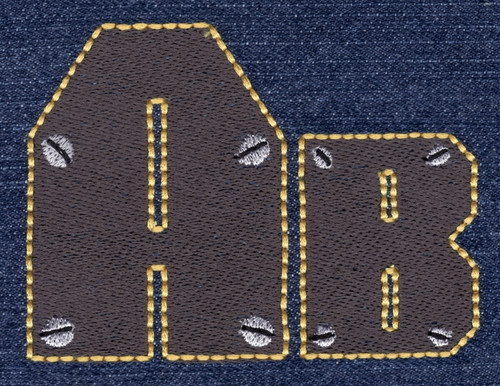
360 Powertool Fill & Floss Font
Powertool Fill & Floss Font comes in 2" and 3" based on the Capital "A" with all other characters sized proportionally. Each character is finished in Fill Stitch Main Color, Floss Stitch Outline second color and screw heads in third and fourth color. Floss Stitch stitches out on all embroidery machines using standard embroidery thread. Set includes uppercase letters, lowercase letters, numbers, four punctuation marks and three single screw heads for additional embellishment.